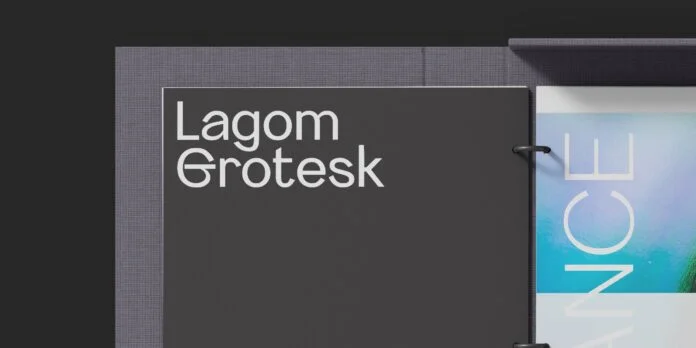
Lagom Grotesk Font
Lagom Grotesk Font is perfect for Scandinavian-inspired branding, minimalist design projects, balanced wellness centers, Nordic lifestyle campaigns, sustainable product packaging, modern furniture branding, Swedish company materials, hygge-themed designs, mindful living promotions, and perfectly balanced marketing materials.
Lagom Grotesk Font is exciting because it embodies the Swedish philosophy of "lagom" - perfect balance and harmony - through precisely balanced letterforms that convey moderation, sustainability, and Nordic wisdom with understated elegance. This thoughtfully designed typeface combines Scandinavian design principles with contemporary functionality, making it perfect for brands that want to communicate balanced living, sustainable practices, and Nordic sophistication that promotes harmonious lifestyle values.
The Lagom Grotesk Font family includes perfectly balanced weights with Scandinavian-inspired character styling, featuring minimalist design elements and Nordic decorative variations. The font showcases lagom design details, harmony-optimized proportions, and balanced character characteristics that create a comprehensive typographic system for sustainable and wellness-focused brand applications.
Lagom Grotesk Font Free Download offers designers access to premium Scandinavian typography that brings authentic Nordic balance character to contemporary sustainable design projects. This expertly crafted typeface has been developed to capture the essence of Swedish lagom philosophy while ensuring optimal performance in mindful marketing applications. The font's balanced character and Nordic appeal make it ideal for wellness brands and sustainability-focused organizations.
The Nordic sophistication of Lagom Grotesk Font makes it an invaluable tool for wellness companies, sustainable brands, and mindful lifestyle providers that need typography capable of communicating balanced living and Scandinavian authenticity. The font's harmonious character helps establish connections with audiences seeking balanced experiences, sustainable products, and authentic Nordic lifestyle that embodies the perfect moderation of lagom philosophy.
Wellness centers, sustainable product companies, and Nordic lifestyle brands consistently choose Lagom Grotesk Font for its ability to convey Scandinavian balance and sustainable sophistication through typography. The font excels in applications where establishing wellness credibility and Nordic appeal are essential to brand positioning, making it particularly effective for sustainable products, wellness services, and mindful lifestyle brands targeting balance-seeking consumers.
This font's comprehensive character set includes Nordic-inspired letterforms, balanced numerals, harmonious punctuation marks, and lagom symbols that support authentic Scandinavian typography composition. The consistent balanced styling maintains the Swedish lagom theme throughout all characters while ensuring professional readability across all wellness and sustainable design projects requiring Lagom Grotesk Font Free Download functionality.